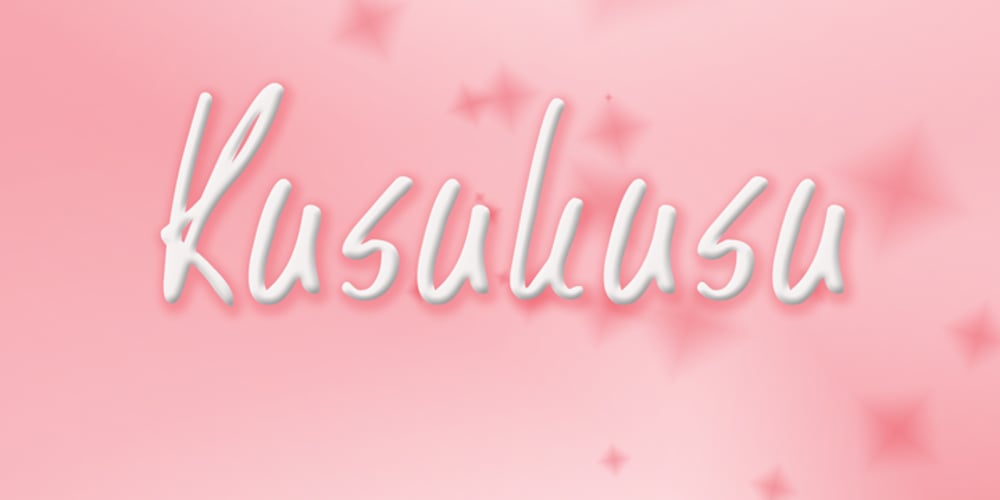
Kusukusu
Kusukusu font
Kusukusu Font Family was designed by David Kerkhoff and published by Hanoded. Kusukusu contains 5 styles and family package options. Kusukusu means ‘chuckle’ or ‘giggle’ in Japanese. It is a feminine, hand written font with a happy feel to it. Kusukusu comes in different styles, has all the diacritics you need and has been kerned by hand.